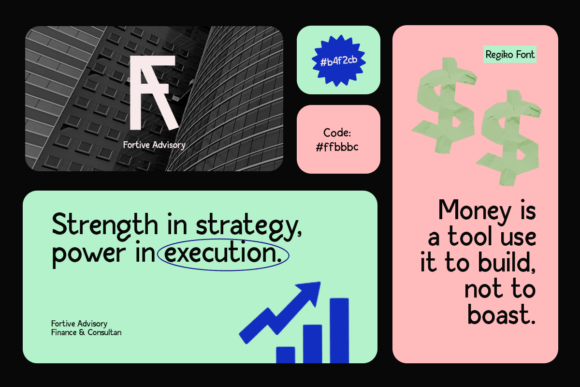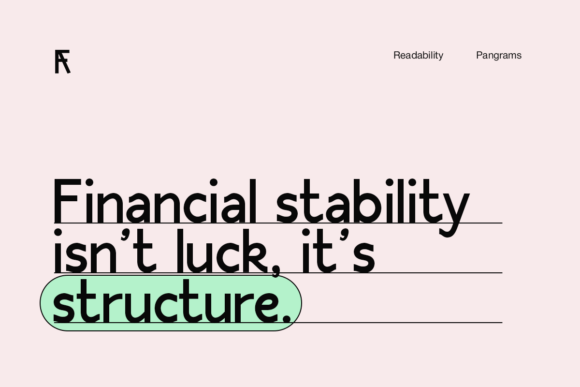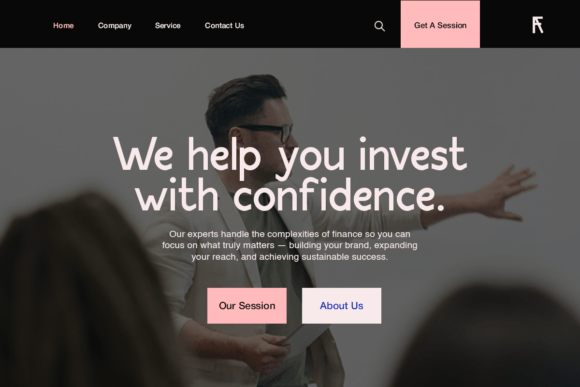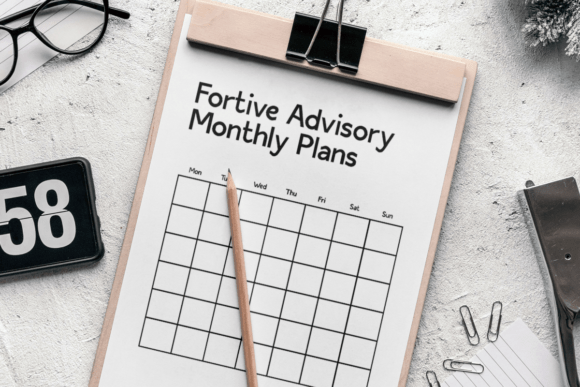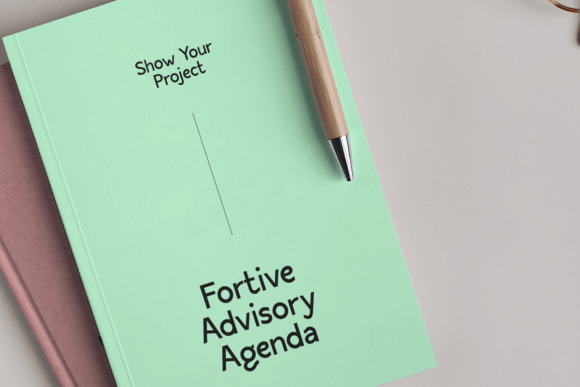
Introduction to Regiko Font
Have you ever been stuck on a design project, searching for the perfect font to give your creative project that extra oomph? You know, the one that perfectly balances high quality and approachability? Well, we’re excited to introduce you to Regiko Font, a stunning sans-serif typeface that’s about to become your new go-to design resource.
With its smooth, contemporary charm and distinctive curves, Regiko Font is the perfect choice for modern corporate branding, digital app interfaces, and even food and beverage packaging. And the best part? You can download it for free, complete with a transparent background, making it easy to integrate into any design project.
Whether you’re a seasoned designer or just starting out, Regiko Font is a valuable addition to your design toolkit. Its unique character and high level of legibility make it an ideal choice for startups and consumer brands looking to communicate a friendly, yet professional aesthetic.
Key Features of Regiko Font
- High-quality font design with a unique and creative touch, perfect for various design projects.
Honest Review: Regiko Font
As a designer, I’m always on the lookout for high-quality design resources that can elevate my creative projects. Recently, I stumbled upon the Regiko Font, and I must say, it’s been a game-changer for me.
What works well with the Regiko Font is its versatility and unique aesthetic. It’s perfect for a variety of design projects, from logos to brochures, and even digital products. The font’s transparent background makes it easy to overlay on different images and graphics, giving me endless design possibilities.
- ✨ High-quality design with clean lines and a modern feel
However, I do have some limitations to note. The font may not be suitable for all types of projects, particularly those that require a more traditional or formal look.
- ⚠️ May not be suitable for formal or traditional design projects
- ⚠️ Limited customization options available
Overall, I’m thoroughly impressed with the Regiko Font. Its unique design and versatility make it an excellent addition to any design resource library. If you’re looking for a high-quality font to elevate your creative projects, I highly recommend giving it a try.
Tips for Getting the Most Out of Regiko Font
Experiment with different font sizes, colors, and styles to create a unique visual effect. Use the transparent background to layer the font over images or other design elements.
The Regiko Font is ideal for use in creative projects, such as graphic design, digital art, and marketing materials. Its high-quality design and transparent background make it a versatile resource for a variety of applications.